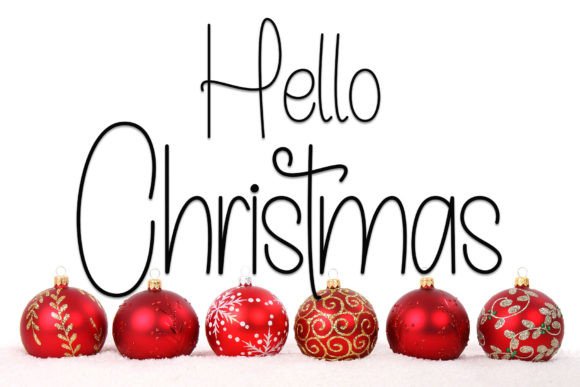
Introducing Christmas Diary Font: A Timeless Classic for Your Holiday Projects
As the holiday season approaches, designers and crafters are on the lookout for the perfect font to add a touch of magic to their Christmas projects. Look no further than Christmas Diary Font, a stylish handwritten font that embodies the spirit of the season. Inspired by timeless classic calligraphy, this font is designed to bring a contemporary atmosphere and impeccable form to your designs.
What Makes Christmas Diary Font So Special?
Christmas Diary Font is a beautifully crafted font that boasts a unique blend of classic and modern elements. Its stylish handwritten design makes it perfect for a wide range of projects, from holiday cards and invitations to festive posters and social media graphics. The font’s balanced and varied design ensures that it will enhance the beauty of your projects, making them stand out from the crowd.
Key Features of Christmas Diary Font
- PUA Encoded: Christmas Diary Font is PUA encoded, which means you can access all of the amazing glyphs and ligatures with ease. This makes it simple to add a touch of elegance and sophistication to your designs.
- Contemporary Atmosphere: The font’s contemporary atmosphere makes it perfect for designers who want to create modern and stylish holiday projects.
- Impeccable Form: The font’s impeccable form ensures that it will look great in any design, from large headings to small body text.
- Balanced and Varied: The font’s balanced and varied design makes it perfect for a wide range of projects, from formal to informal.
Why Choose Christmas Diary Font for Your Holiday Projects?
Perfect for Holiday Cards and Invitations
Christmas Diary Font is perfect for creating beautiful holiday cards and invitations. Its stylish handwritten design makes it ideal for formal and informal events, from Christmas parties to holiday gatherings.
Ideal for Festive Posters and Social Media Graphics
The font’s bold and elegant design makes it perfect for creating eye-catching festive posters and social media graphics. Whether you’re promoting a holiday sale or simply want to add some festive cheer to your social media feeds, Christmas Diary Font is the perfect choice.
Great for Crafters and DIY Enthusiasts
Christmas Diary Font is also great for crafters and DIY enthusiasts who want to add a personal touch to their holiday projects. From handmade cards to decorative gift tags, this font is perfect for anyone who wants to add a touch of elegance and sophistication to their creations.
How to Use Christmas Diary Font in Your Projects
Pair it with Other Fonts
Christmas Diary Font looks great when paired with other fonts. Try pairing it with a bold sans-serif font for a modern and stylish look, or with a script font for a more elegant and sophisticated design.
Experiment with Different Sizes and Colors
Don’t be afraid to experiment with different sizes and colors when using Christmas Diary Font. The font’s bold and elegant design makes it perfect for large headings, while its delicate lines make it suitable for smaller body text.
Use it for Headings and Titles
Christmas Diary Font is perfect for headings and titles. Its bold and elegant design makes it ideal for grabbing attention and adding a touch of sophistication to your designs.
Christmas Diary Font is a beautiful and versatile font that is perfect for any holiday project. Its stylish handwritten design, impeccable form, and contemporary atmosphere make it ideal for a wide range of designs, from formal to informal. Whether you’re a designer, crafter, or DIY enthusiast, Christmas Diary Font is the perfect choice for adding a touch of elegance and sophistication to your holiday creations.